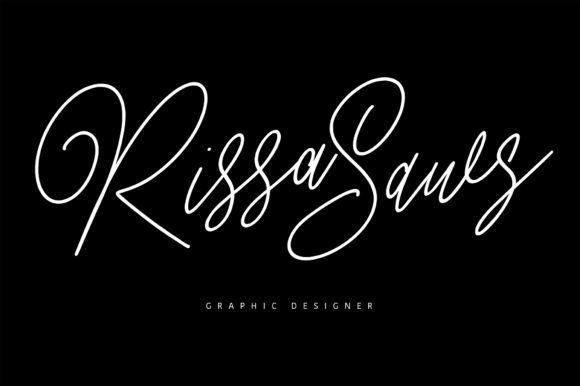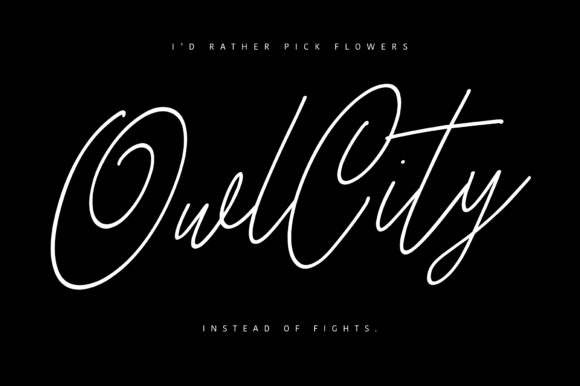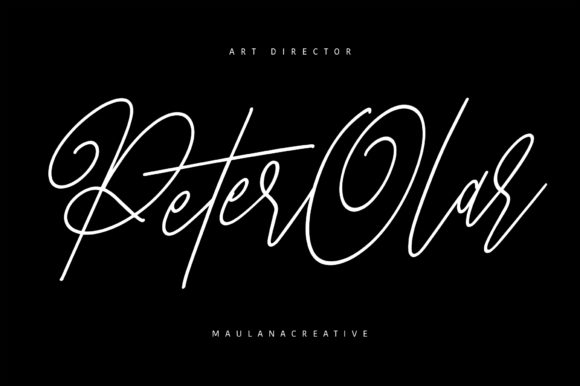
About Batters Font
Batters is a thin lettered, delicate handwritten font. Fall in love with its incredibly versatile style and use it to create gorgeous wedding invitations, beautiful stationary art, eye-catching social media posts, and much more!